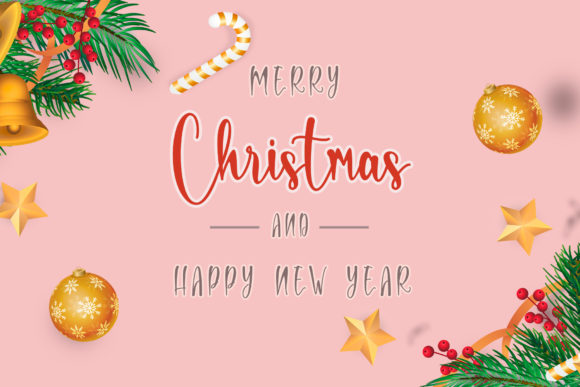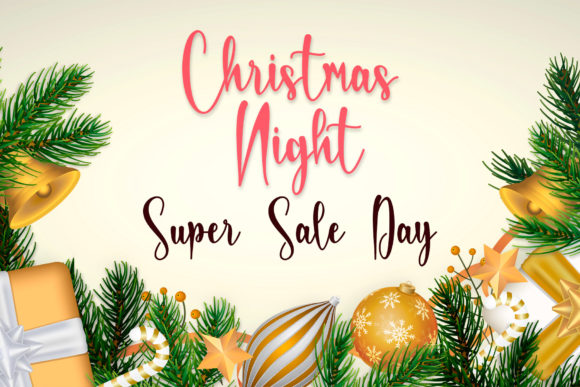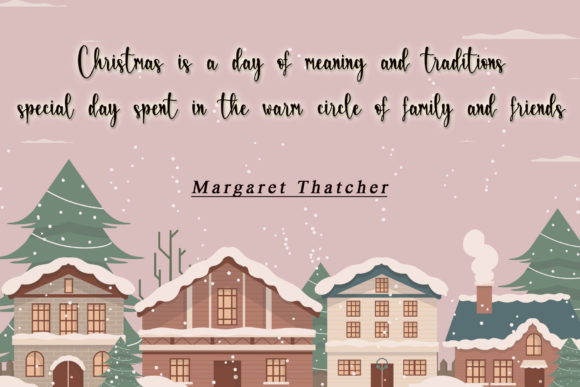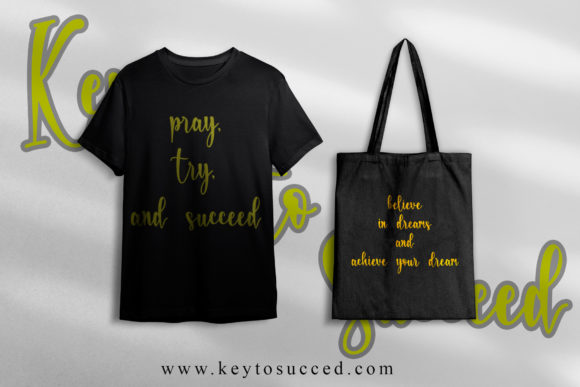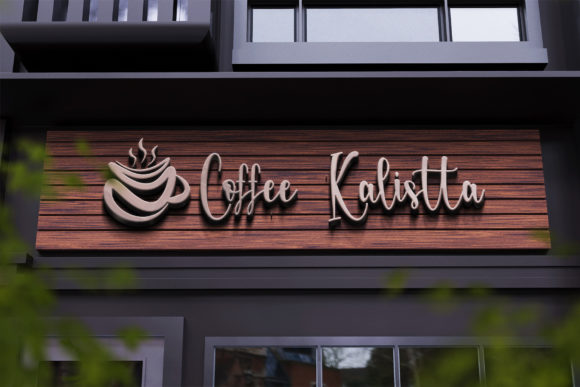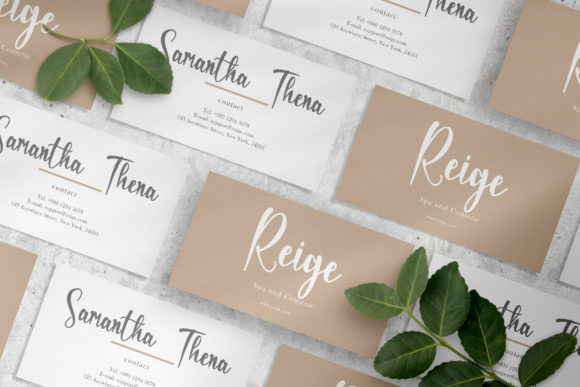
Introduction to Shivanya Font
Have you ever been working on a creative project and suddenly, you’re stuck on the perfect font to bring it all together? For designers, finding the right typography can be the difference between a mediocre design and a masterpiece. I know I’ve been there, pouring over font options, searching for that one special something that will elevate my design to the next level. And then, I discovered Shivanya Font.
This lovely script font exudes elegance and class, making it the perfect choice for any design resource. With its delicate curves and refined lines, Shivanya Font adds a touch of sophistication to any project. Whether you’re working on a branding project, a wedding invitation, or a digital display, this font is sure to impress. Plus, with its transparent background and high-quality design, it’s a free download that’s worth its weight in gold.
As a valuable resource for designers, Shivanya Font is a game-changer. Its PUA encoding makes it easy to access all the amazing glyphs and ligatures, giving you endless possibilities for creative expression. Whether you’re a seasoned pro or just starting out, Shivanya Font is a must-have in your design arsenal.
Key Features of Shivanya Font
- Unique, elegant font style with a transparent background, perfect for adding a touch of sophistication to your design.
- Includes 100+ glyphs, making it suitable for a wide range of languages and applications.
- Perfect for use in logo design, branding, packaging, and other creative projects where a unique and elegant font is required.
Honest Review: Shivanya Font
I recently had the chance to work with the Shivanya Font, and I must say it’s a great addition to any design resource collection. This free download is perfect for creative projects where you want to add a touch of elegance.
- High-quality design: The Shivanya Font is meticulously crafted with a focus on precision and detail, making it a great choice for projects where you need a clean and sophisticated look.
- Transparent background: This allows for easy composition and layering, giving you more flexibility when working on your design.
- Wide character set: The Shivanya Font includes a comprehensive set of characters, making it suitable for use in a variety of languages.
Overall, I’m impressed with the Shivanya Font and would recommend it to designers looking for a high-quality, free download. However, its limitations should be taken into consideration before using it for commercial projects or those requiring a more playful tone.
Tips for Getting the Most Out of Shivanya Font
Experiment with different font sizes, colors, and styles to create a unique look. Use Shivanya Font in combination with other design elements, such as images and shapes, to add depth and interest to your designs.
Shivanya Font is perfect for a variety of creative projects, including wedding invitations, business cards, and marketing materials. Its elegant style makes it ideal for luxury brands and high-end designs.